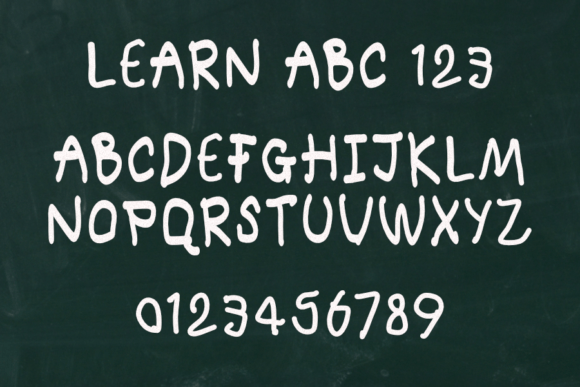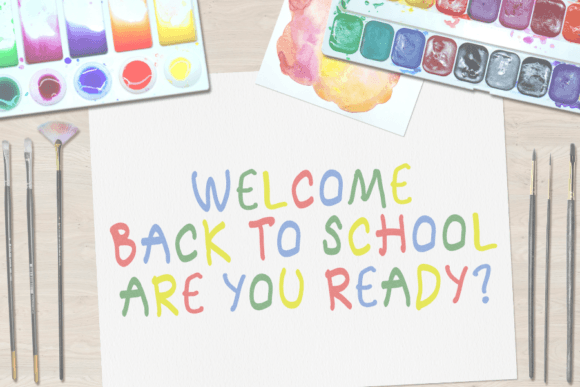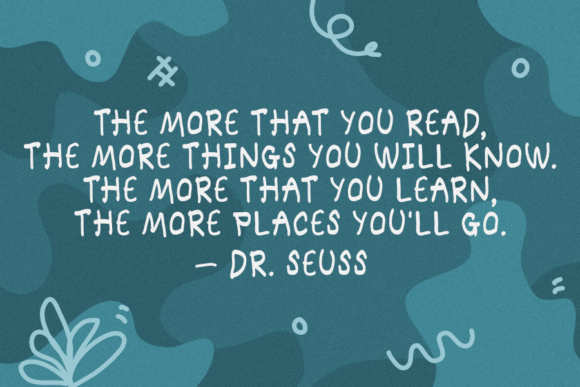
Unlocking the Power of Imagination
Do you remember the joy of scribbling in crayon, bringing your wildest dreams to life on a blank page? For many of us, that carefree creativity is a cherished memory from childhood. But what if we could tap into that same sense of wonder and freedom in our design work?
Enter Ibohim Font, a delightful and whimsical typeface designed specifically for children. This charming font is more than just a tool – it’s an invitation to explore the boundless possibilities of imagination. With its irregular, cute, and simple design, Ibohim Font adds a touch of fun to any project, making it a valuable asset for designers looking to captivate young minds and bring a playful touch to their designs.
Whether you’re a children’s book author, an educator, or a designer looking to add some whimsy to your next project, Ibohim Font is sure to spark joy and creativity in both you and your audience.
Ibohim Font Key Features
- Unique Characteristics: Ibohim Font features a unique blend of traditional and modern design elements, with intricate details and subtle nuances that set it apart from other fonts.
Ibohim Font Review
Overall, I’m quite impressed with the Ibohim Font. Here are some of its standout features: ✨
- Unique and modern design: The Ibohim Font has a distinctive look that’s perfect for adding a touch of elegance to any project.
- Highly legible: The font is well-designed and easy to read, making it suitable for a wide range of applications.
- Good support for multiple languages: The Ibohim Font includes support for a variety of languages, making it a great choice for international projects.
- Not suitable for small font sizes: The Ibohim Font is best used at larger font sizes, as it can become blurry and difficult to read at smaller sizes.
- Limited bold and italic options: While the font has a range of weights, the bold and italic options are limited, which may be a drawback for some users.
Overall, I think the Ibohim Font is a great choice for designers looking for a unique and stylish font. While it may have some limitations, its modern design and high legibility make it a great addition to any project.
Ibohim Font: A Practical Application Guide
Getting the Most Out of Ibohim Font
To get the most out of Ibohim Font, try the following tips:
– Use it in combination with bold and italic styles to create visual interest.
– Experiment with different font sizes to create a balanced design.
– Use Ibohim Font for headings and titles to create a consistent look.
Ibohim Font is suitable for a variety of use cases, including:
– Creative projects, such as posters and brochures.
– Business presentations and reports.
– Digital media, such as social media posts and blog articles.
Alternatives to Ibohim Font for Designers
The Ibohim Font is a sans-serif typeface known for its clean and modern design. Here are some alternatives for designers to consider.
Montserrat is a sans-serif typeface designed by Julieta Ulanovsky in 2011. It is a geometric sans-serif font inspired by the urban typography of the Montserrat neighborhood in Buenos Aires. Montserrat is a great choice for designers who want a clean and modern font for digital and print designs. It is more geometric and structured compared to Ibohim Font, which has a more rounded and friendly feel.